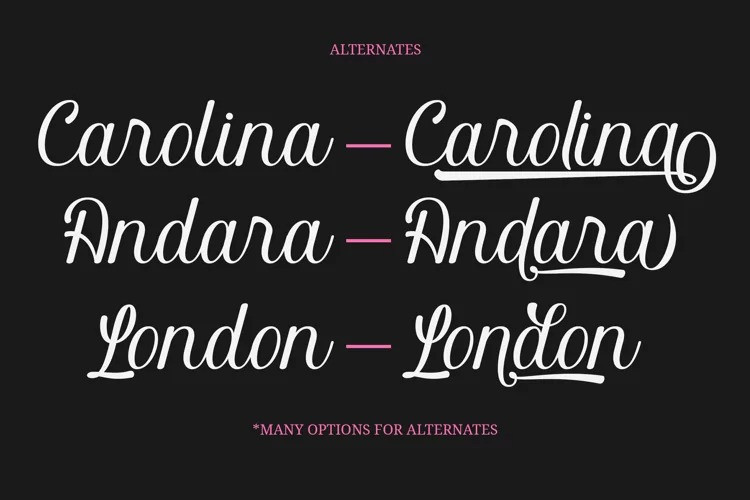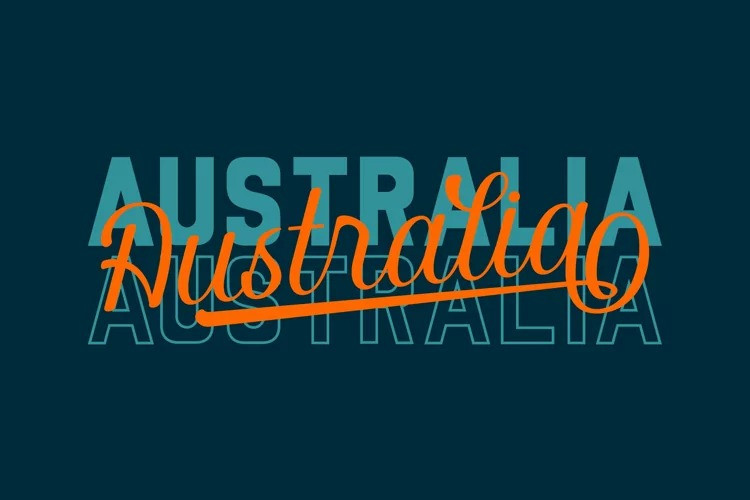
Balita Script Font
Balita is a thin and elegant handwritten font. It looks beautiful on a variety of designs requiring a personalized style, such as wedding invitations, thank you cards, weddings, greeting cards, logos and so on.